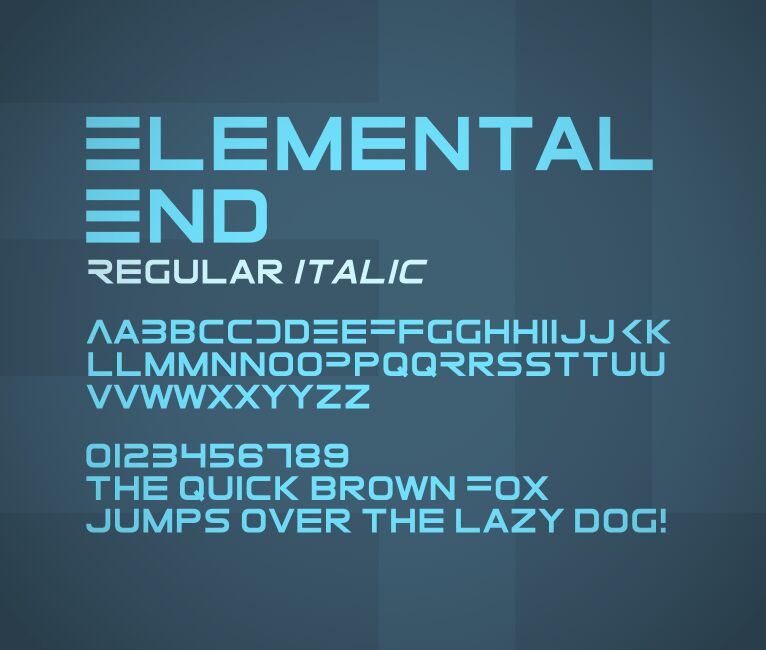
Elemental End Italic by Zdenek Gromnica is a free futuristic display font with an extremely wide, forward-leaning, decisive stance. Long horizontal strokes, sharp diagonal cuts, and tightly engineered curves give the lettering the streamlined profile of racing graphics and industrial badges.
Motorsport posters are its clearest assignment. The same low, fast construction suits team branding, vehicle decals, game title screens, and electronic music artwork, especially when the lettering needs to behave like a custom logo. Its angular sweep belongs most convincingly to subjects built around racing, machinery, and high-speed science fiction.
It is a sans-serif font with regular and italic styles. Uppercase letters are alternative forms, while lowercase letters are more standard forms. Alternative versions of A, B, D, E, F, K, P, R, and AE are included.